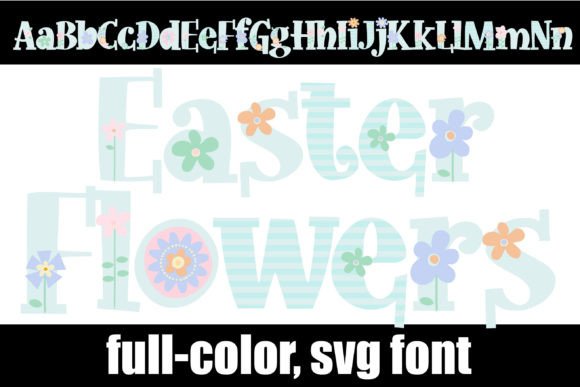
Easter Flowers: A Floral Typeface for Spring Branding
There’s a specific feeling that comes with the first warm days of spring—the kind that makes you want to throw open the windows and bring a little of that outdoor freshness inside. For designers, capturing that seasonal energy often starts with typography. If you’ve been hunting for a typeface that embodies the vibrancy of a blooming garden, you might have come across the Easter Flowers font. It isn’t just a set of letters; it’s a visual experience. Imagine taking the delicate petals of a peony or the intricate curl of a vine and weaving them directly into the letterforms. That is the essence of this typeface—it transforms standard text into art, turning every word into a miniature floral arrangement bursting with color.
Beyond Standard Typography
Most of the fonts we use daily are utilitarian. We choose a sans-serif for readability on a screen or a serif for authority in a print document. They are the workhorses of the design world. However, some projects demand something more expressive. When you are working on a design asset that needs to stop a user mid-scroll or invite someone to a celebration, you need a typeface with personality. This particular premium font operates in a unique space. It functions as a display typeface, meaning it is designed for impact rather than long-form reading, but it does so with a level of artistic detail rarely seen in standard vector typography.
What makes this font stand out is its construction. It isn’t simply a script font with a rough texture; it is a floral color font. The letters are adorned with intricate botanical illustrations. When you type "Spring Sale" or "Happy Birthday," the resulting text looks like a hand-painted mural. This level of detail is crucial for creative entrepreneurs who want to establish an immediate emotional connection with their audience. It conveys care, nature, and celebration without the need for additional graphic elements.
Practical Applications for Branding and Packaging
For small business owners, particularly those in the beauty, wellness, or artisan food sectors, branding is about storytelling. How do you communicate that your product is organic, hand-crafted, or luxurious before the customer even reads the description? Typography does the heavy lifting here. Using a creative font like Easter Flowers on your logo design or packaging can instantly signal a commitment to aesthetics and nature.
Consider a local florist or a bakery specializing in spring-themed treats. Using this typeface for the header of a menu or the label on a jam jar creates a cohesive brand identity that feels curated and high-end. It is particularly effective for:
- Packaging Design: Wrap text for artisanal soaps, candles, or gourmet goods where the visual appeal suggests a natural ingredient list.
- Logo Design: Creating a memorable wordmark for businesses with "Garden," "Bloom," or "Floral" in their names.
- Merchandise: Designing graphics for tote bags, t-shirts, or mugs where the art is the selling point.
Digital Presence and Social Media Strategy
In the fast-paced world of social media, visual consistency is your best friend. Algorithms favor content that keeps users engaged, and high-quality graphics are the primary driver of that engagement. A generic font can often get lost in the noise of a crowded Instagram feed or Pinterest board. A distinctive typeface, however, acts as a visual anchor.
Imagine using this floral color font for your Instagram Stories or Reels covers. It creates an immediate aesthetic that is recognizable to your followers. It works exceptionally well for:
- Social Media Graphics: Announcing flash sales, holiday hours, or seasonal collections with text that pops off the screen.
- Website Headers: Creating a stunning hero section for a lifestyle blog or a boutique e-commerce site. It sets the mood for the entire user experience.
- Digital Products: If you sell digital planners, invitations, or wall art, this font adds significant value to your product, allowing you to charge a premium for a unique design.
It is also worth noting the importance of context in web design. While this display font is stunning, it is best reserved for headlines and call-to-action buttons. Trying to force a decorative typeface into body text can hurt readability. The smartest approach is to pair it with a clean, modern sans-serif or a simple serif font. For example, a block of text written in a neutral font like Open Sans or Roboto will look crisp and professional, while the Easter Flowers headers provide the necessary flair and artistic direction.
Strategic Font Pairing and Readability
One of the most common mistakes in design is "font overload." When you have a typeface that is as detailed and vibrant as this one, it needs a partner that supports it rather than competes with it. Think of the floral font as the lead singer and the body font as the rhythm section. The lead singer gets the attention, but the band needs to be tight for the song to work.
Ultimately, the tools we choose define the boundaries of our creativity. A font like Easter Flowers offers a specific toolset: one that is colorful, organic, and celebratory. It is not the right choice for a corporate law firm’s annual report, but for a wedding planner, a lifestyle brand, or a seasonal marketing campaign, it provides the perfect blend of charm and professional utility. It allows you to speak the language of spring fluently, ensuring your designs resonate with the freshness and vitality of the season.